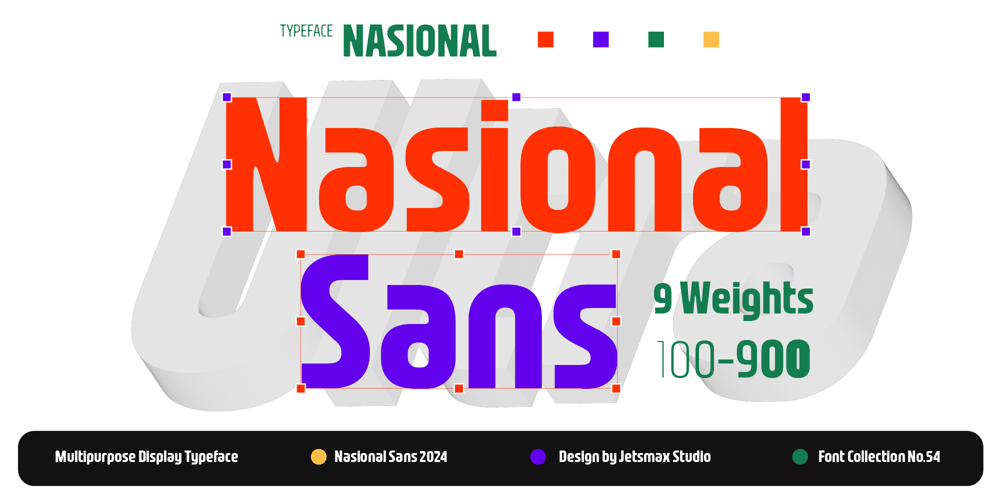
Nasional Sans Font Family was designed by Khairil Anwar and published by Jetsmax Studio. Nasional Sans contains 9 styles and family package options. Nasional Sans is more than just a font; it’s a versatile design tool that enhances the aesthetic and readability of any project. Its combination of modern elegance, extensive customization options, and cross-platform compatibility make it a must-have for designers and creatives. Its minimalist aesthetic, exceptional readability, and versatile customization options make it an invaluable tool for any designer. Whether you’re working on corporate branding, editorial content, web design, or advertising, this font provides the perfect blend of style and functionality.Embrace the future of design with this elegant typeface and let your creativity shine!